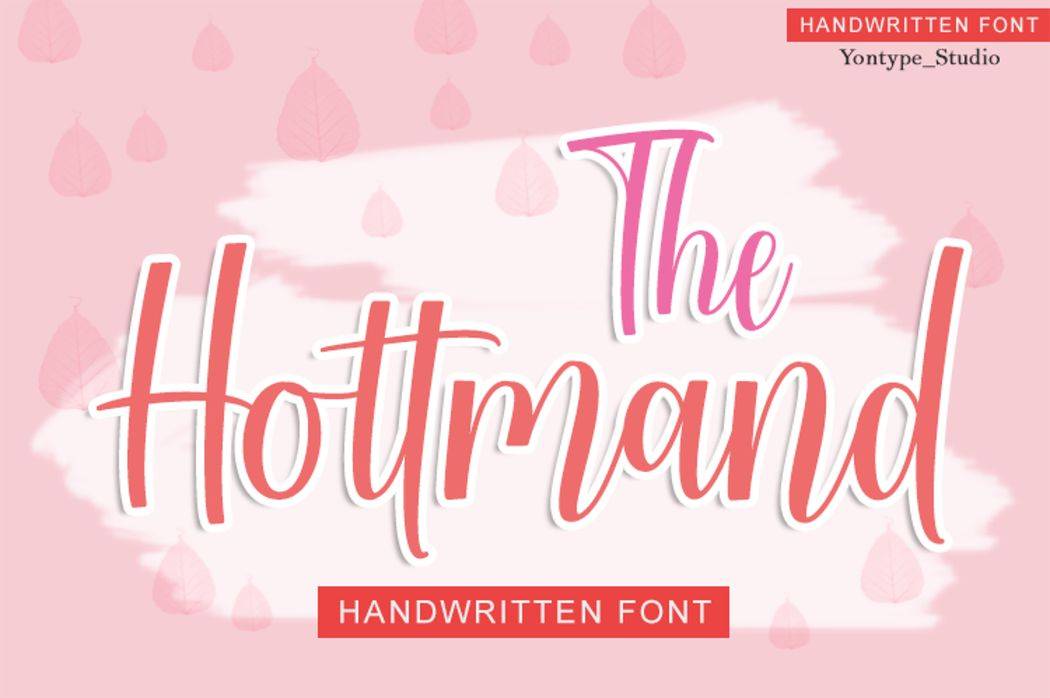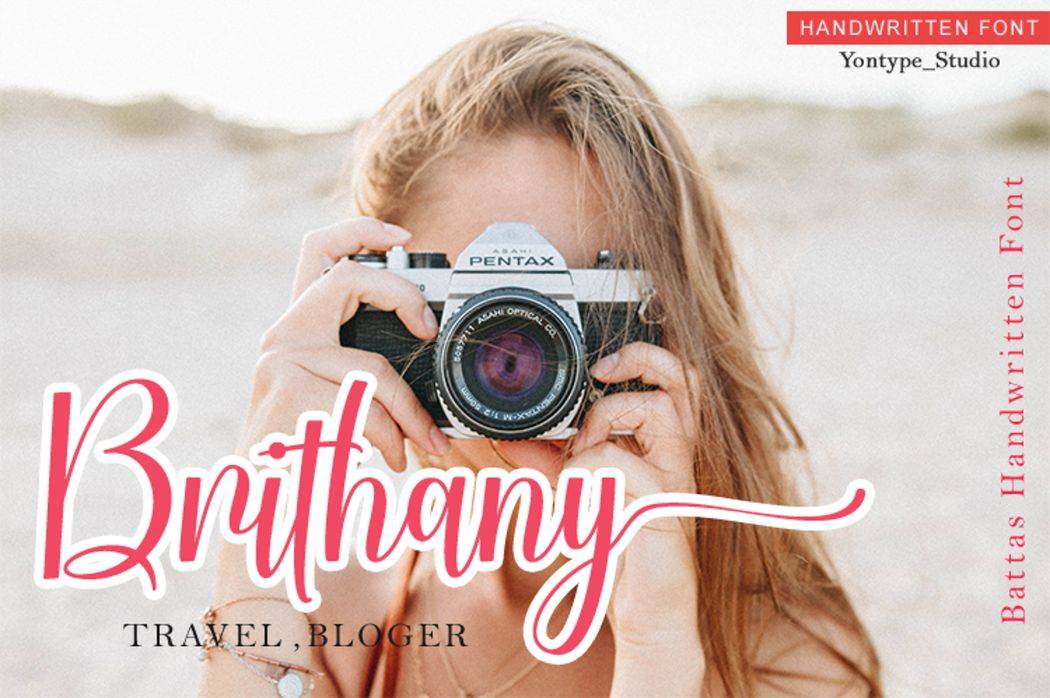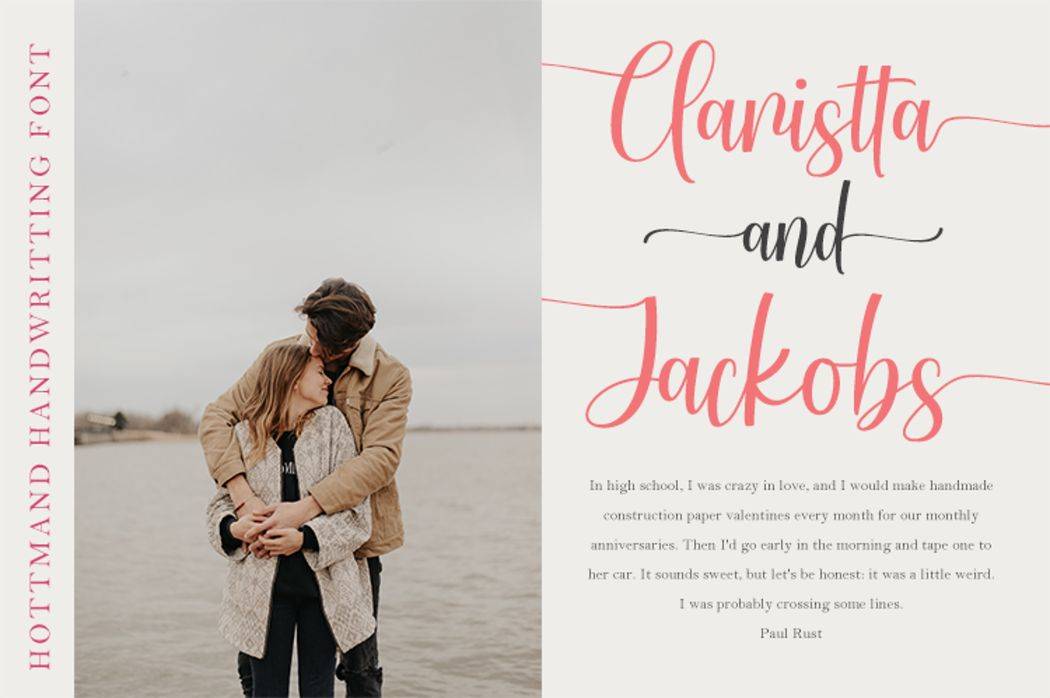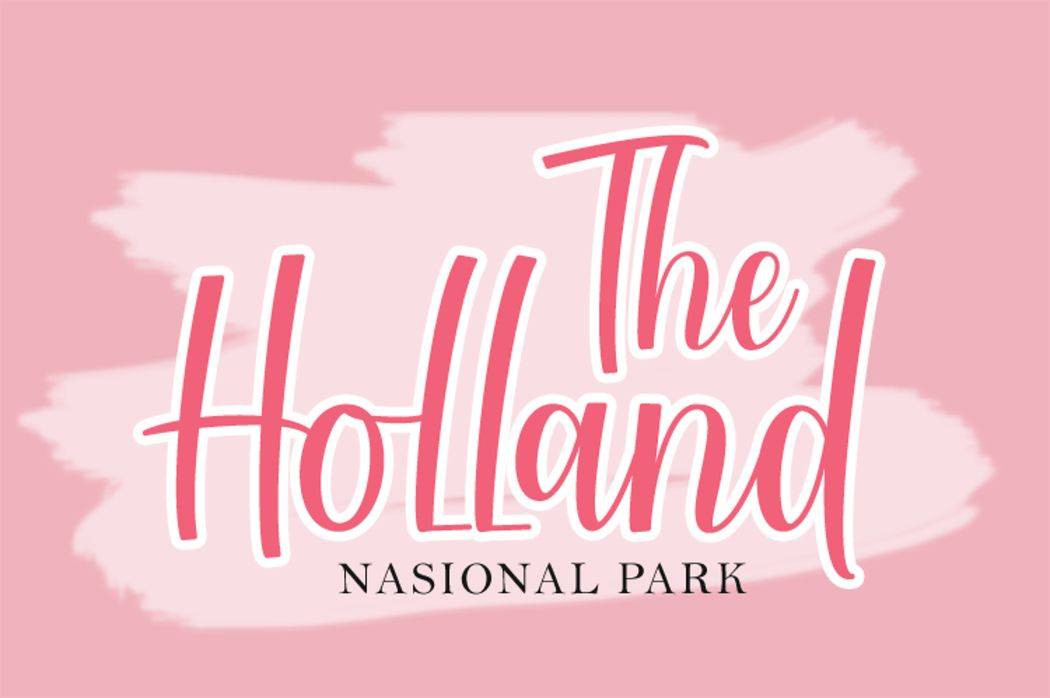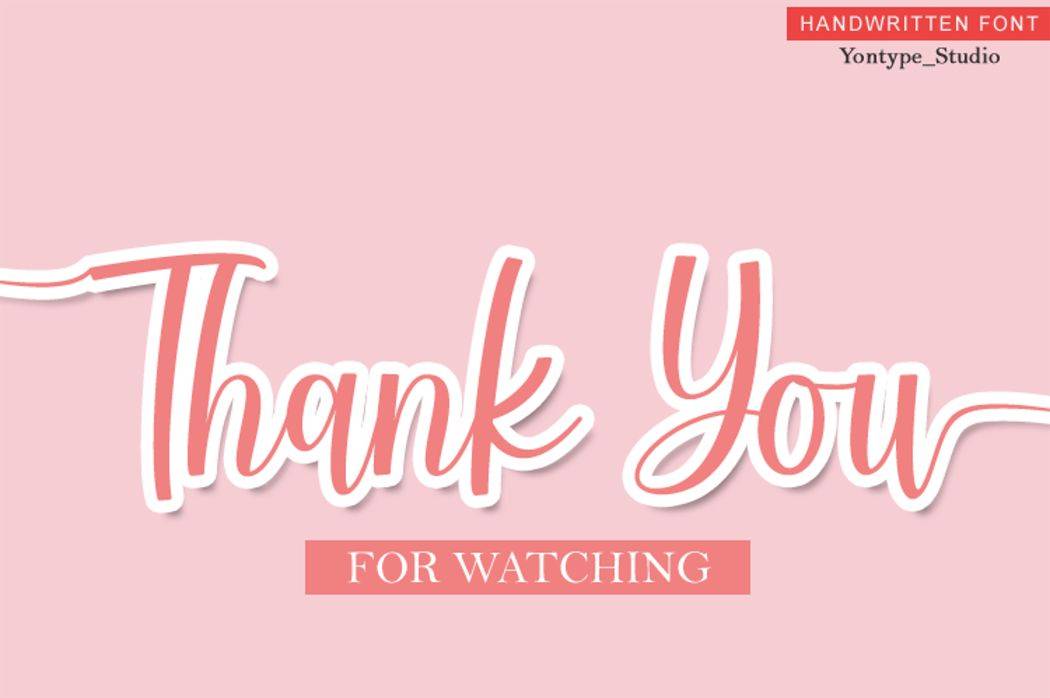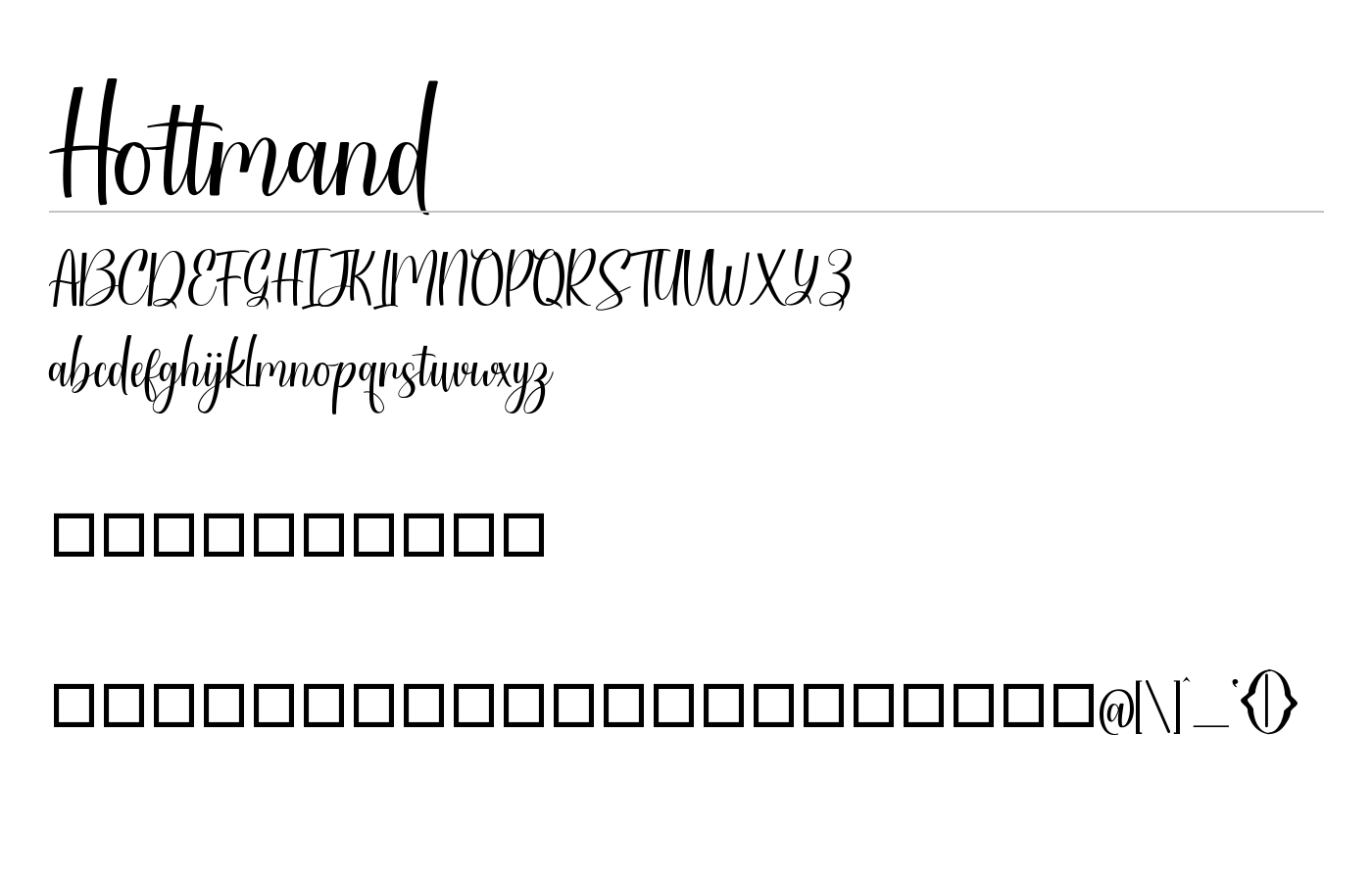
Hottmand is a lively script font featuring a playful, bouncy rhythm with elegant, flowing strokes that give it a casual yet refined feel. Its slender letterforms and delicate curves make it perfect for branding, invitations, and creative projects seeking a friendly and stylish touch. This font works especially well in settings where a personal, hand-crafted appearance adds charm and appeal.
Hottmand a Bouncy Font
About Hottmand a Bouncy Font
| Font family | Hottmand a Bouncy Font |
| Designer | Muhammad Yoni |